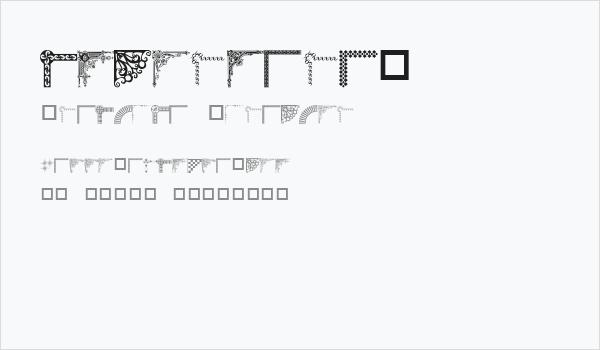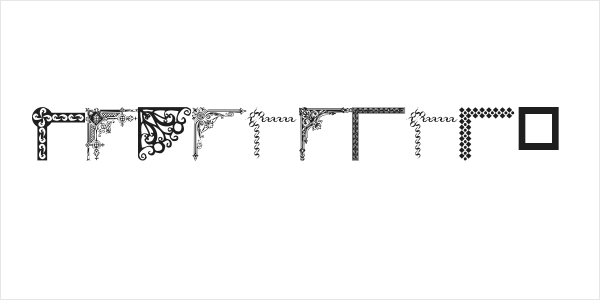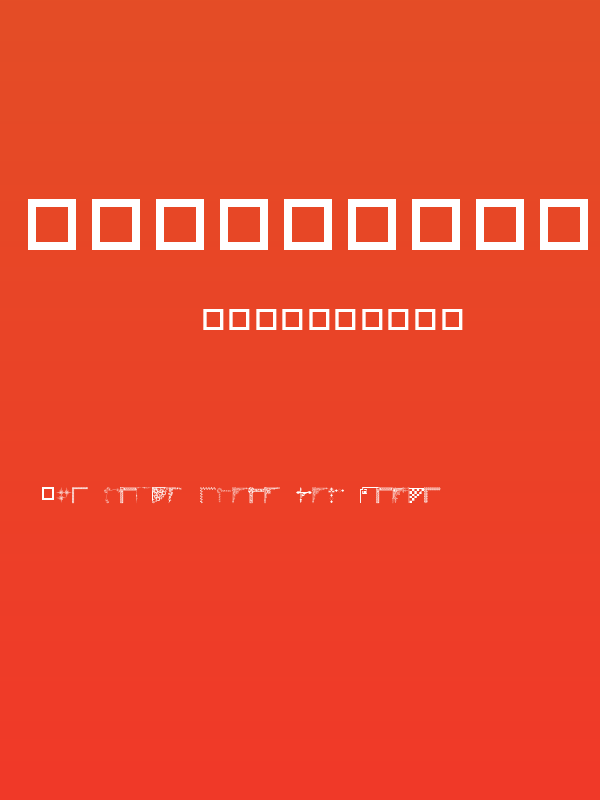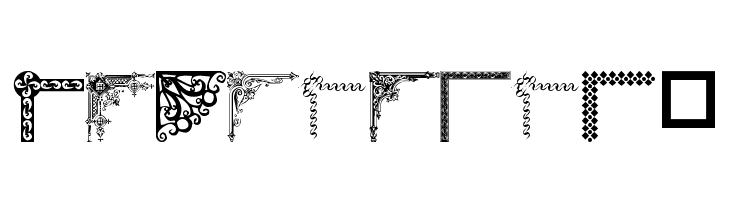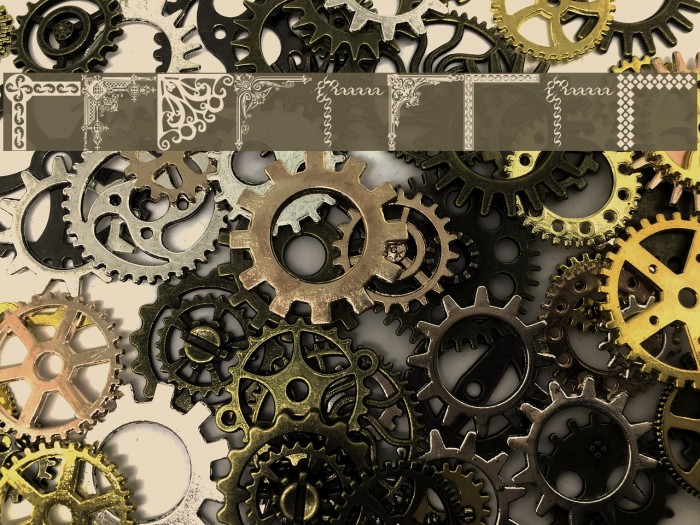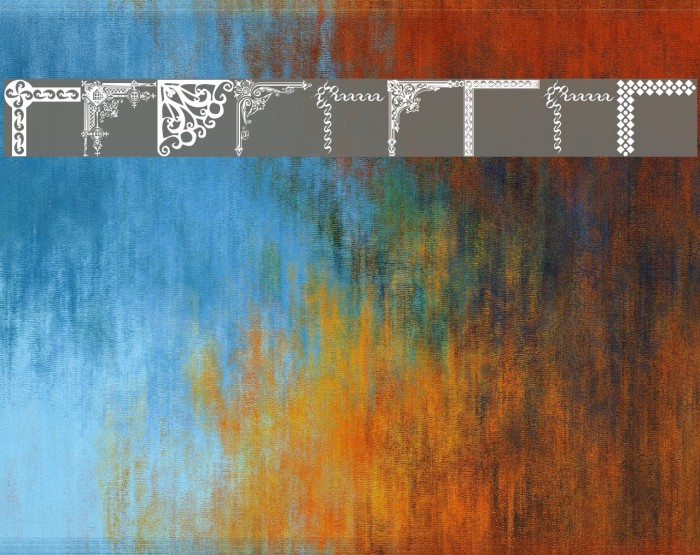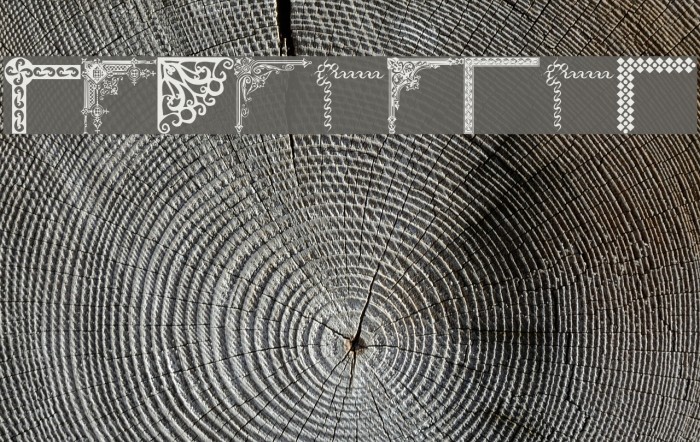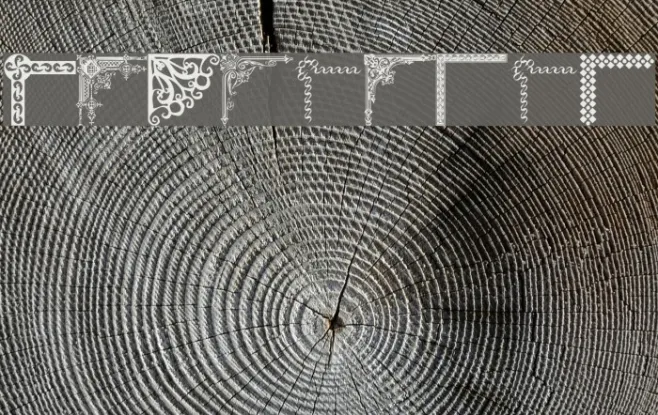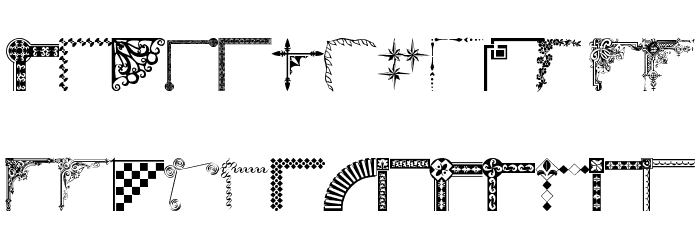
wmcorners2 Font
wmcorners2 Description
This is a decorative font featuring intricate corner designs. Each character is represented by a unique ornamental corner, showcasing a variety of styles from floral and geometric to abstract and classic motifs. The designs are highly detailed, making them suitable for embellishing documents, invitations, or any project requiring an artistic touch. The font does not include traditional alphanumeric characters but instead focuses on decorative elements that can be used to frame or highlight text and images.
| Use Case | Logos, Decorative elements |
| Proposed Projects | Ideal for creating decorative borders, enhancing invitations, designing artistic frames, or adding ornamental touches to graphic design projects. |